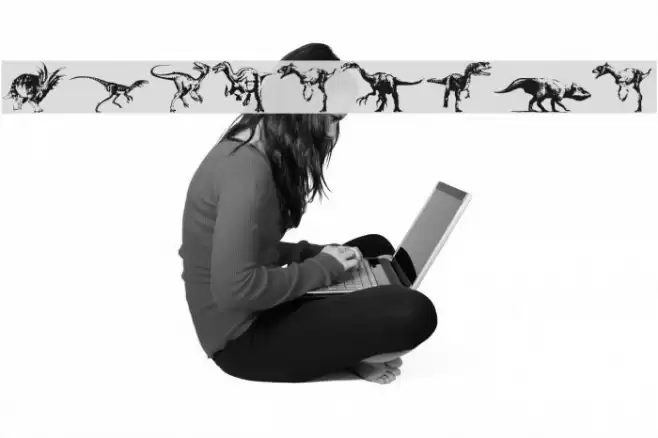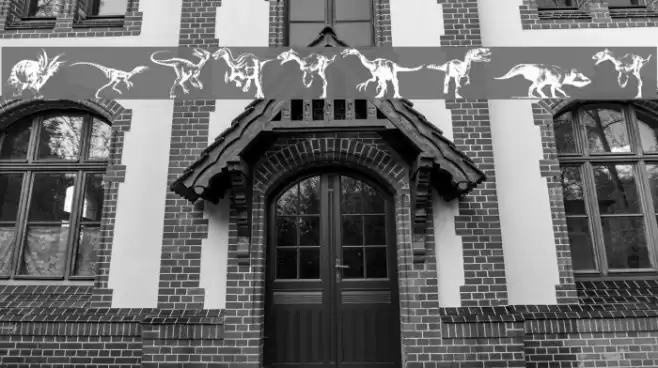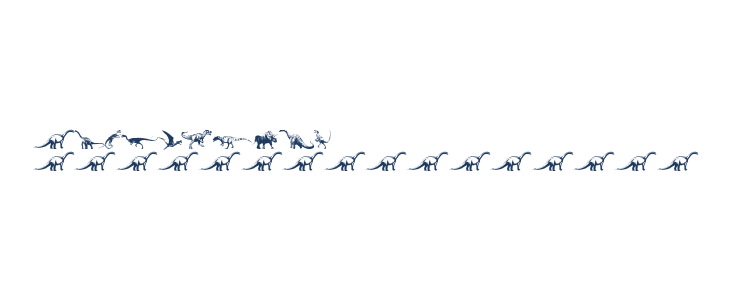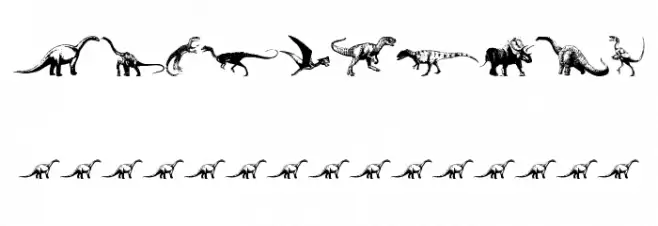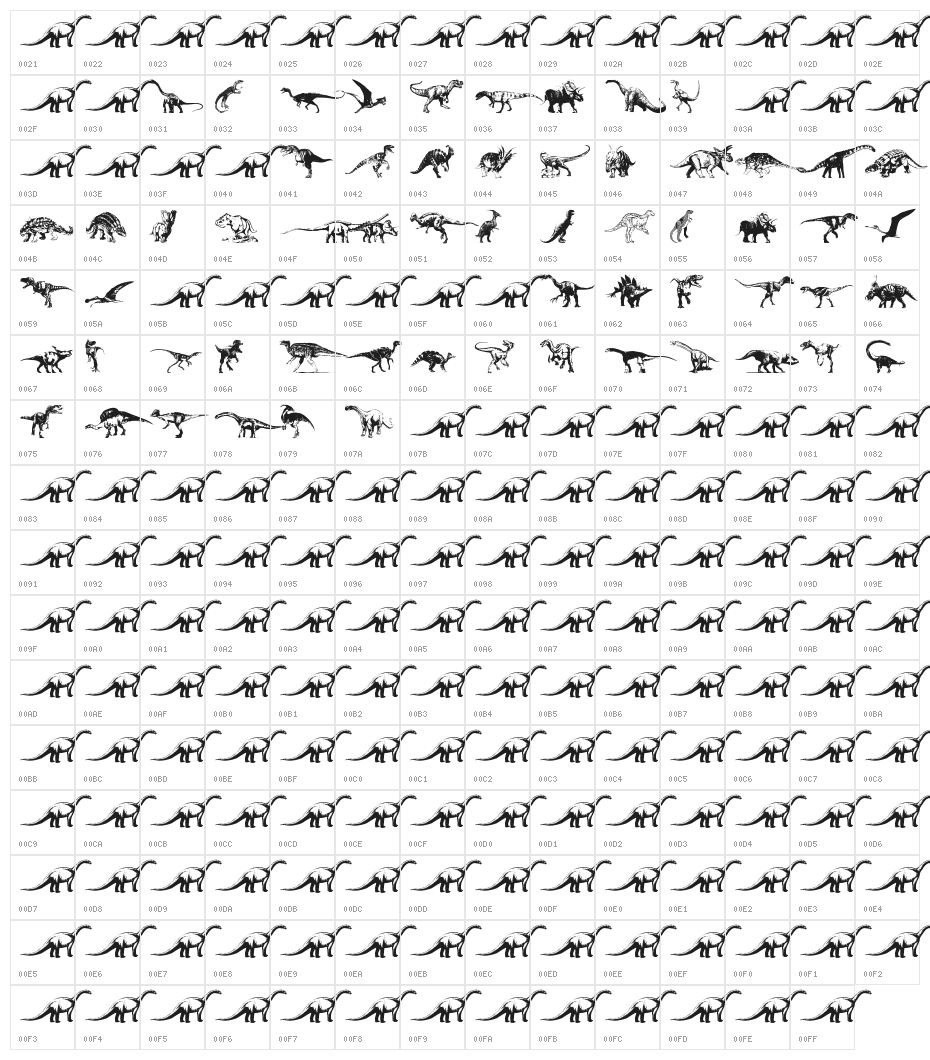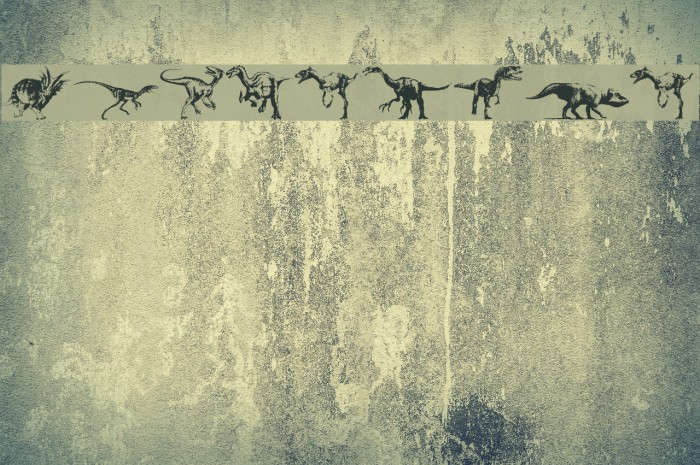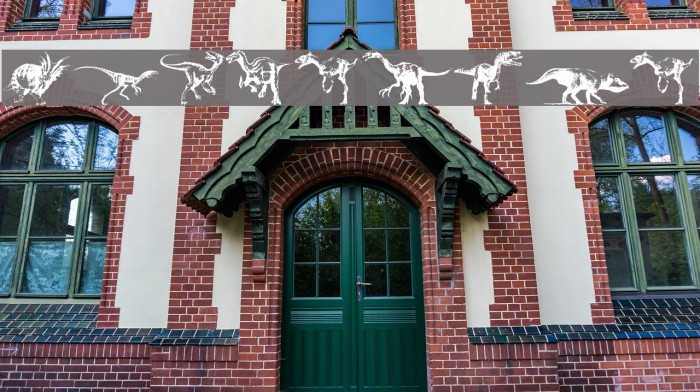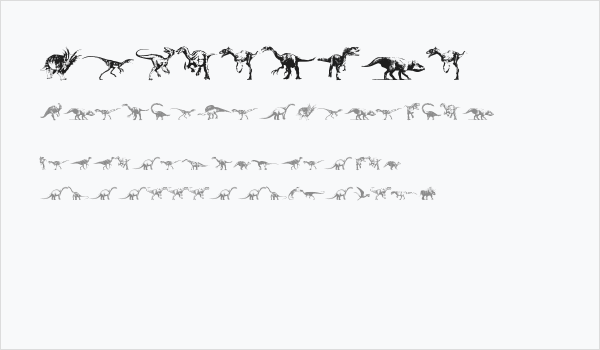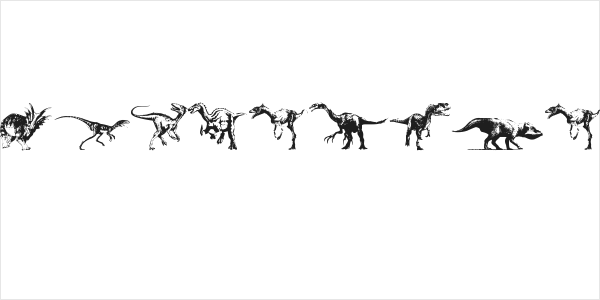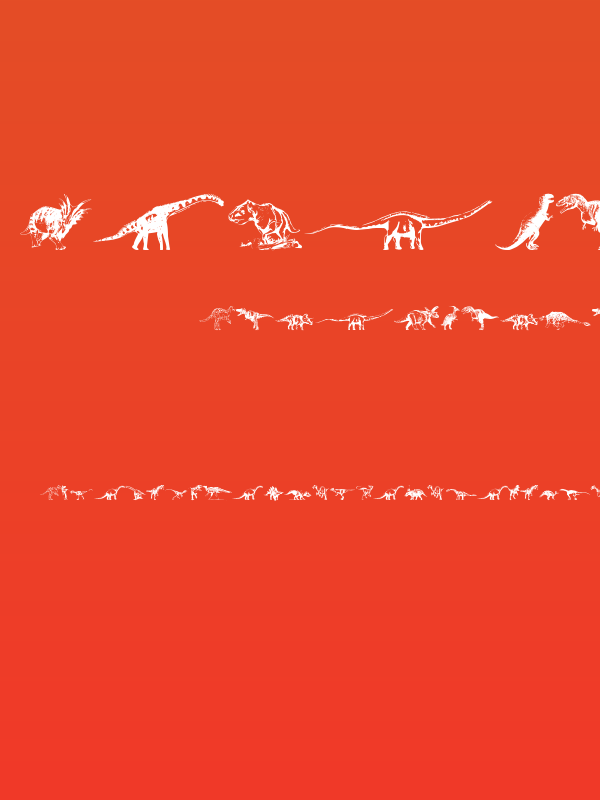
Dinosaurs Font
Dinosaurs Description
A decorative display set featuring detailed black-and-white dinosaur silhouettes in various poses and species, rendered with sketch-like line work and moderate detail.
A decorative display set of dinosaur silhouettes with sketch-style detail from Dingbats fonts.
- Proposed Projects: Children’s books, educational posters, themed party invitations, museum signage, playful branding.
- Overall Style: Decorative, Playful, Thematic
- Use Case: Logos, Posters, Educational Materials, Themed Graphics